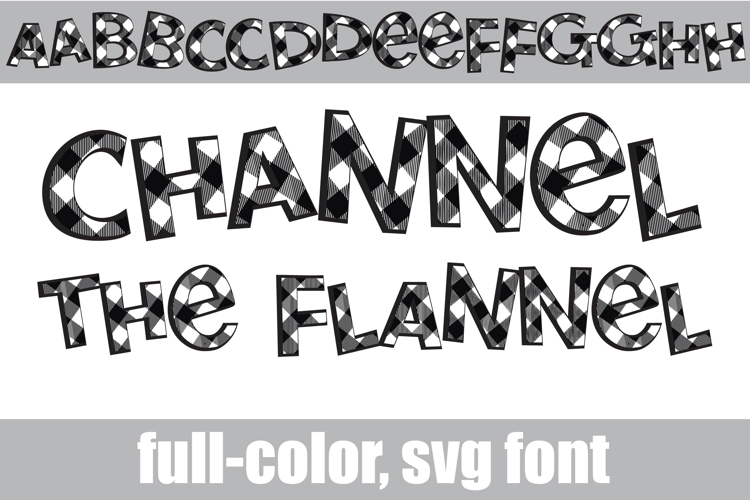
Channel the Flannel Blue and White Color Font
This full-color, sans serif font features black and white flannel. There is an alt case of blue flannel of additional colors of each letter that you can access through your system's character map.